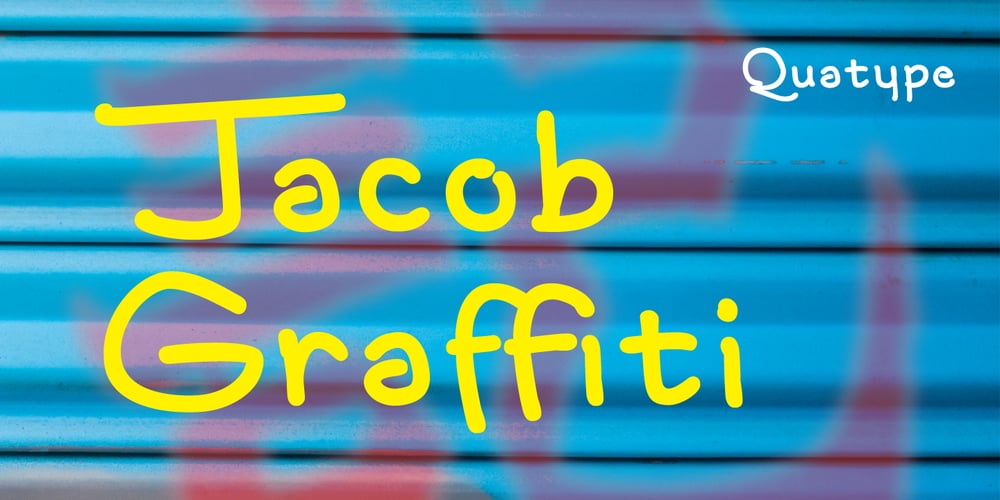
Jacob Graffiti Font Family was designed by Quan-gang Li and published by Quatype. Jacob Graffiti contains 1 styles and family package options. Jacob Graffiti is a font inspired by graffiti. In order to reflect the feeling of spray paint, the beginning or the end of the characters show a sense of stroke. When designing this font, to add some fun, a pictorial ligature was specially designed: jacob. And it’s on the smile face Unicode block too.